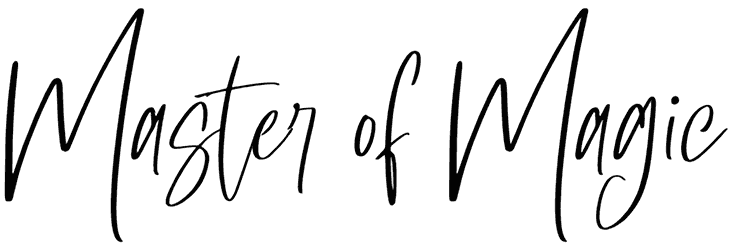
Master of Magic Font
With casual and smooth lettering, your design would be able to catch a lot of attention, and this option would be a nice one. This handwritten font with a modern and cool vibe can be matched with formal or informal layouts. With an A-Z cover of characters, the Master of Magic font will illustrate your projects, namely flyers, planners, invitations, and whatnot, with a delightful mood.